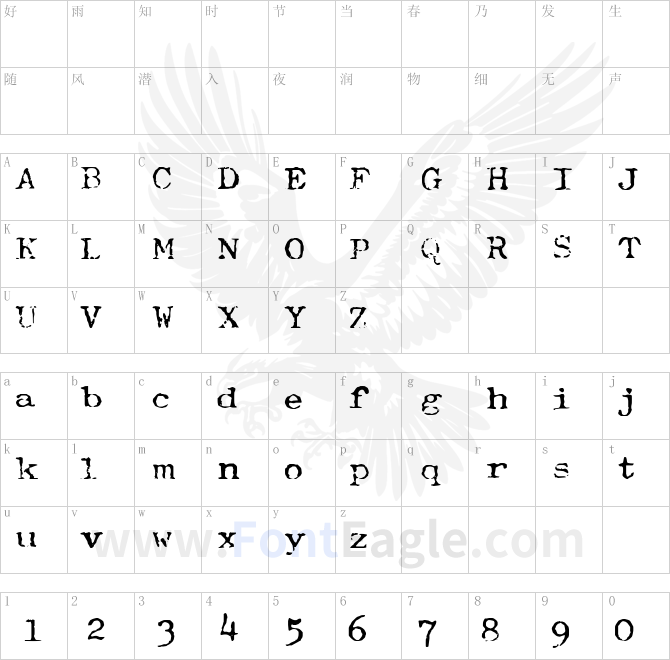
- Font name:Typewriter-Font (Royal 200)
- Font Subfamily ID:MR.FISK: Typewriter-Font (Royal 200): 2004
- Font Full Name:Typewriter-Font (Royal 200)
- Font Version:2004; 1.0, a typed release
- Postscript:Typewriter-Font(Royal200)
- Font Copyright:Copyright (c) MR.FISK (Mike Larsson), 2004. All rights reserved.